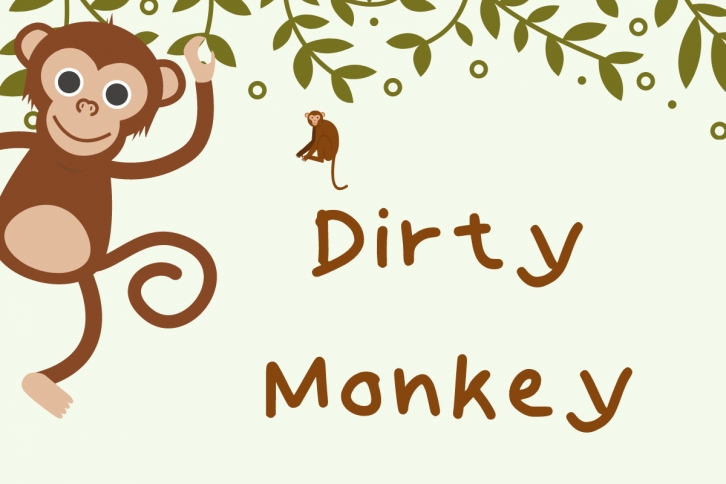
Dirty Monkey is a fun and playful handwritten font. Whimsical and a bit quirky, this font will brighten up each of your designs. Add it confidently to your projects, and you will love the results.